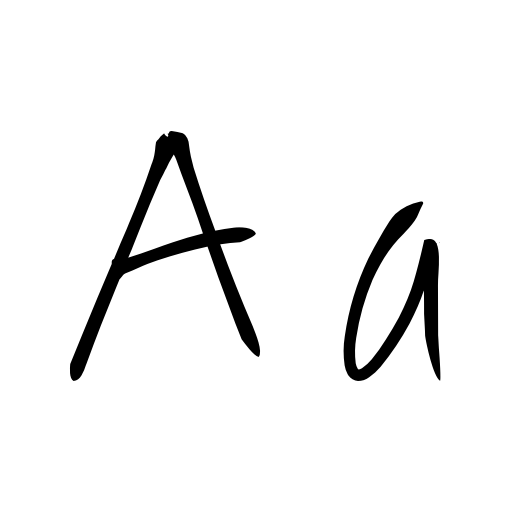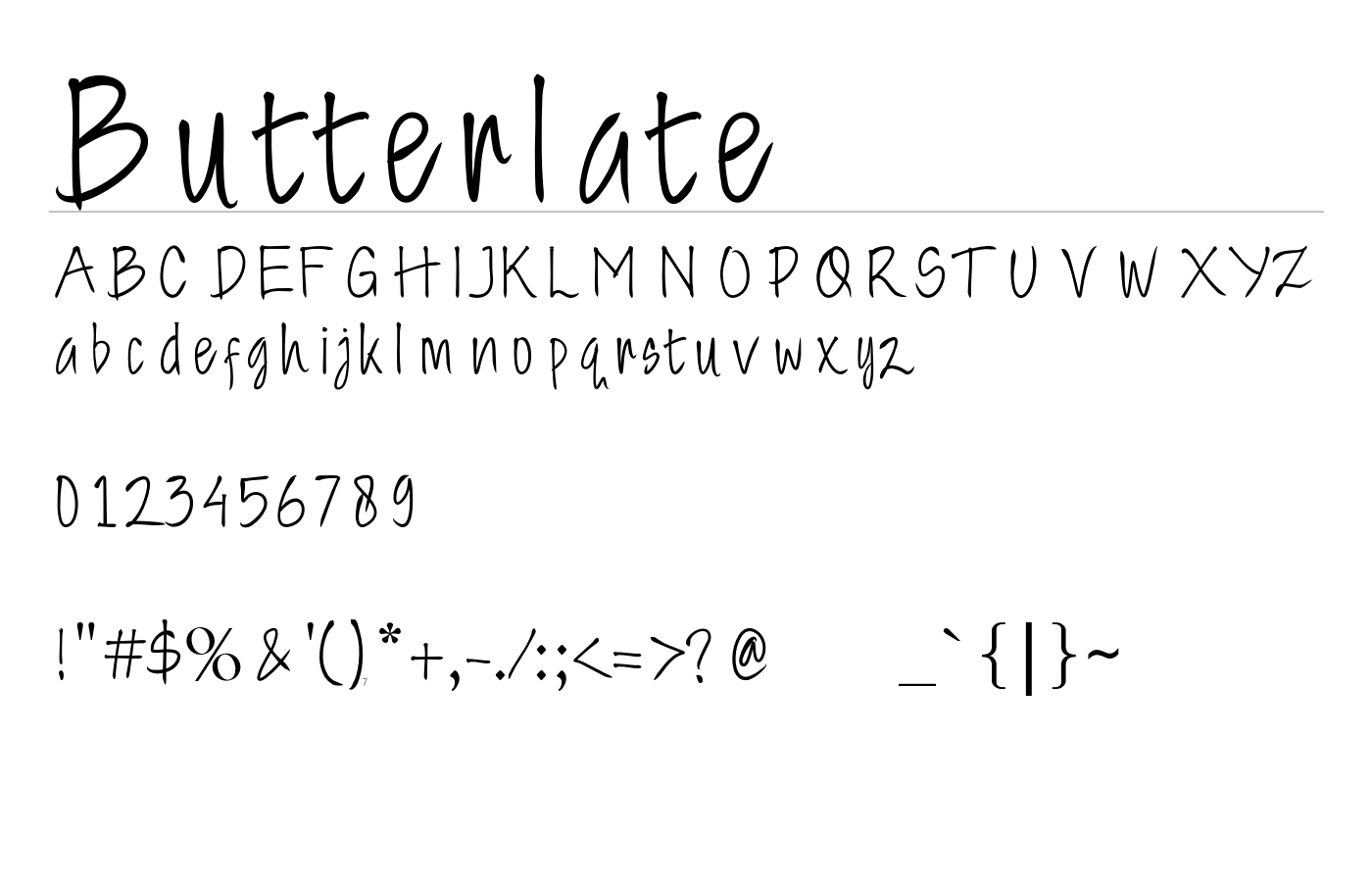
Butterlate is a playful handwritten sans-serif font with a light weight and narrow width, featuring tall, slightly irregular letterforms that give it a casual, friendly feel. Its simple, clean strokes and subtle variations mimic natural handwriting, making it perfect for informal branding, invitations, and creative projects that need a personal touch. This font works well in designs that seek warmth and approachability without sacrificing clarity.
Butterlate Font
About Butterlate Font